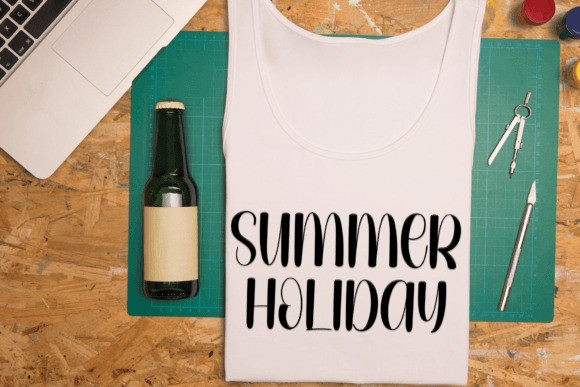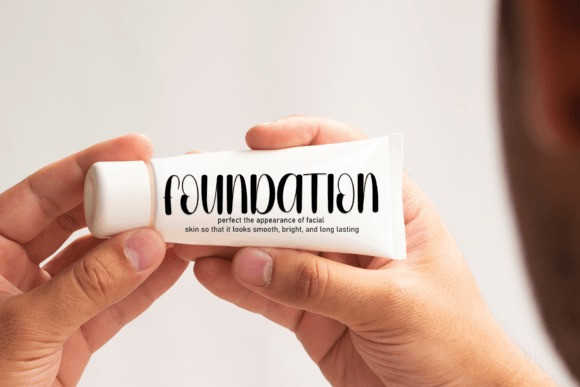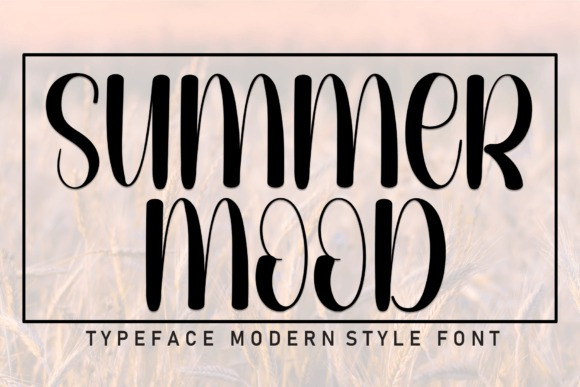
Summer Mood Font
Summer Mood is a sweet and friendly handwritten font. Fresh and casual, this font is ideal for writing wedding invitations, cards, or any other design that might need a lovely touch.